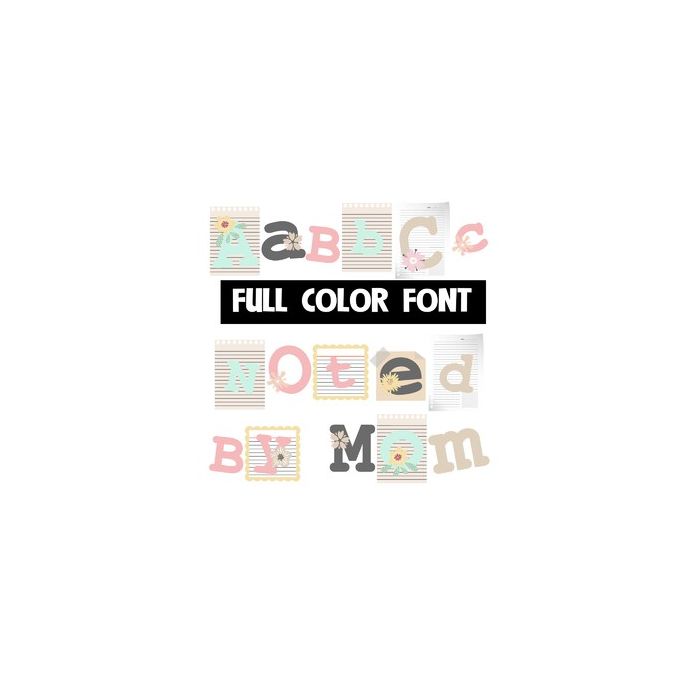
This full-color font features feminine colors, note papers, and leaves. This font works best for titles, displays, posters and more. Please note color fonts will show as black in non compatible programs. This font type is compatible with Silhouette Studio.